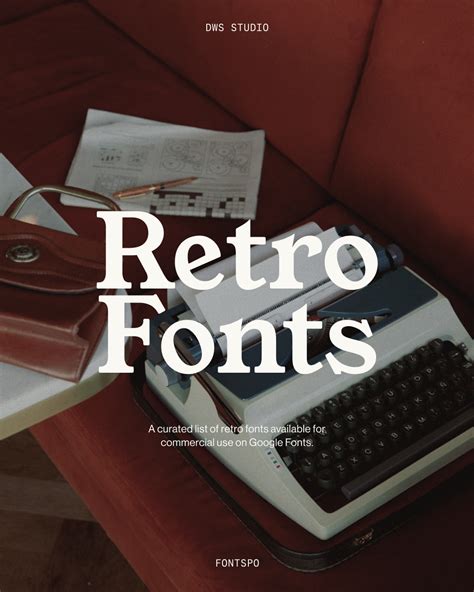
Top 47+ Vintage Google Fonts Collection Ttf
I remember spending hours scouring the web for authentic retro typography for a 1920s poster mockup, only to end up with mismatched typefaces. When you need a reliable resource for historical design, having access to a Top 47+ Vintage Google Fonts Collection Ttf changes your entire workflow. Instead of guessing combinations, you get a tested toolkit. Here's the thing about retro design: the wrong font instantly breaks the illusion. You need typefaces with genuine historical DNA.
Why a Top 47+ Vintage Google Fonts Collection Ttf Matters
Not all old-looking fonts are created equal. In my experience, many modern interpretations of vintage styles lack the proper x-height or stroke contrast, making them look cheap when printed. True retro typography requires an understanding of specific eras—Victorian, Art Deco, or mid-century modern. A well-curated collection of Google Fonts in .ttf format allows you to test these nuances locally before pushing a project to production. That said, downloading individual files from the Google Fonts library is tedious. Having them bundled saves you the hassle of clicking through hundreds of pages.
Standouts from the Top 47+ Vintage Google Fonts Collection Ttf
When I tested this specific grouping of typefaces, a few immediately stood out for their versatility and accurate historical representation:
• Special Elite: An absolute workhorse for typewriter aesthetics. It handles ink-bleed simulations beautifully.
• Pirata One: Perfect for gothic or Victorian-era projects. Just be careful with its legibility at small sizes.
• Limelight: My go-to for Art Deco posters. It captures that 1920s glamour without feeling cliché.
• Alfa Slab One: A heavy, impactful slab serif that screams vintage signage. It pairs surprisingly well with clean sans-serifs.
Structuring Your Retro Font Pairings
Pairing vintage fonts is tricky. Honestly, mixing two heavy retro typefaces usually results in a visual disaster. I typically contrast a heavy, ornate display face with a highly legible, neutral serif or sans-serif body font. This is where it gets interesting: the .ttf files in your collection give you the freedom to test these pairings offline in Adobe Illustrator or Figma before committing to a web font stack.
Font Name Era / Style Best Used For
Special Elite Mid-20th Century Typewriter Body text in noir themes, stamp effects
Limelight 1920s Art Deco Headlines, event posters
Abril Fatface 19th Century Didone Magazine covers, luxury branding
Practical Application and Workflow
Finding the right typographic voice for a historical project takes patience and a critical eye. Don’t settle for the first retro-looking font you find. Test the kerning pairs, print out your proofs, and see how the ink visually fills the counters. A genuine vintage aesthetic relies on those subtle details. Build your palette, trust your eye, and let the history speak through the typography.